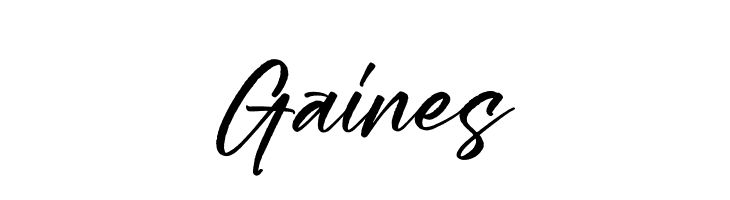
A bold, expressive handwritten font with thick, rounded strokes.
A graceful, cursive script font with elegant, flowing strokes.
A dynamic, cursive script font with a natural, handwritten style.
A bold, hand-drawn font with a playful and energetic style.
A bold, textured, hand-drawn font with an energetic and playful style.
A flowing, cursive font with elegant, interconnected characters.
A playful, rounded font with a whimsical, handwritten style.
A sophisticated, elegant handwritten font with fluid, graceful strokes.
A bold, playful handwritten font with dynamic strokes and tight spacing.